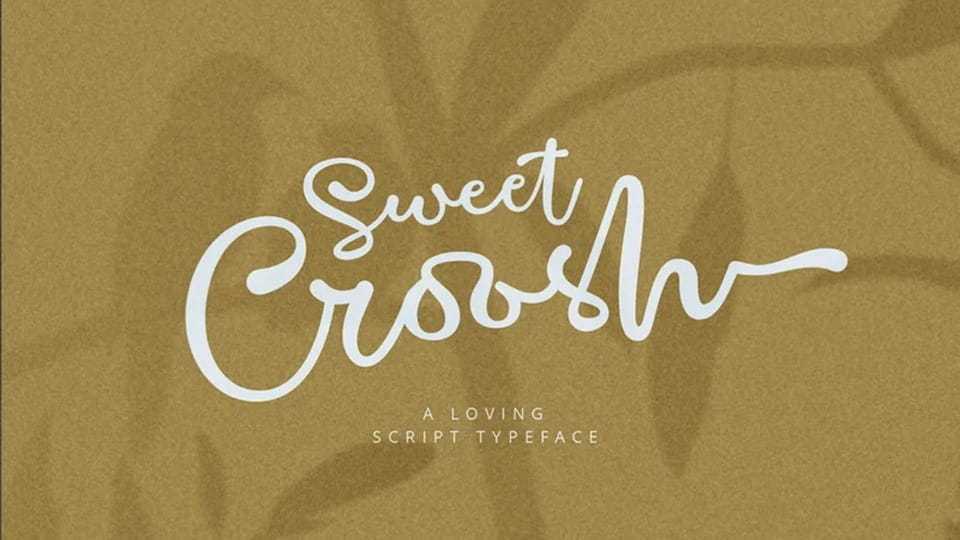
Download Sweet Croosh font, a beautifully crafted script that blends natural flow, modern aesthetics, and an air of elegance. Its smooth, hand-drawn strokes evoke a sense of effortless sophistication.